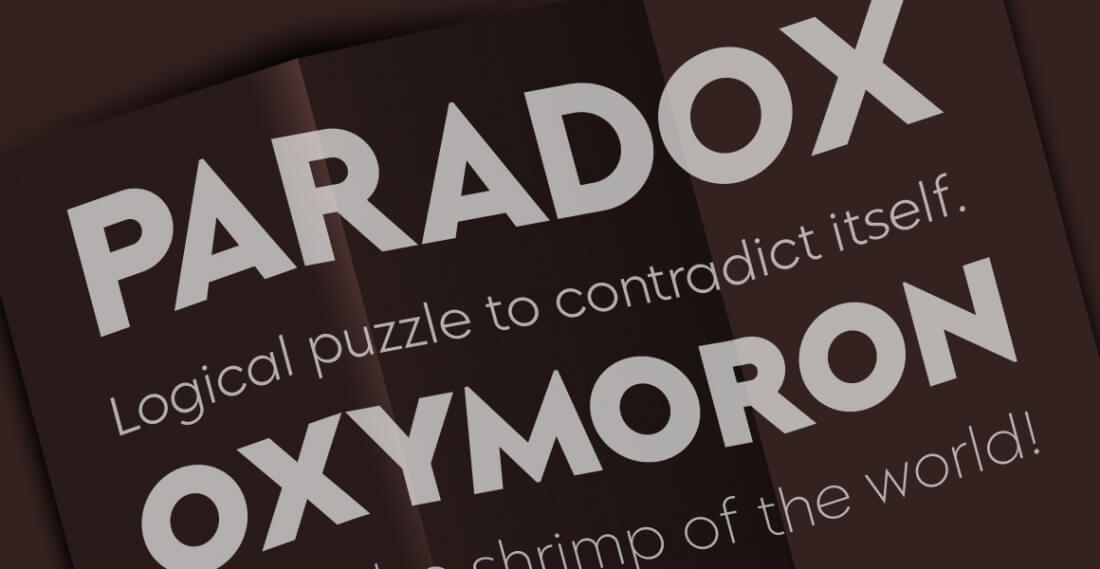
Morn is a sharp geometric sans font with roman proportions. Every character's essence stems from a rectangle (square), a circle, and a triangle, which require little adjustments to make them appear optically equivalent.
This font is equipped with OpenType layout features such as fractions and ligatures, and the default layout for numbers is proportional lining but can be changed to tabular lining. So, the space between numbers looks more even.
Morn has a total of 20 fonts, which are upright and oblique. Each font has 460+ characters, and Morn supports many Latin languages such as Western Europe, Central/Eastern Europe, and Baltic languages, as well as Turkish and Romanian.
Highlights:
- 20 sharp geometric sans serif fonts;
- 2 variable fonts;
- 10 different weights from Hairline to Black, with matching italics;
- Functional OpenType features include kerning and alternates;
- Supports more than 200 Latin languages;
- 460+ glyphs per font.